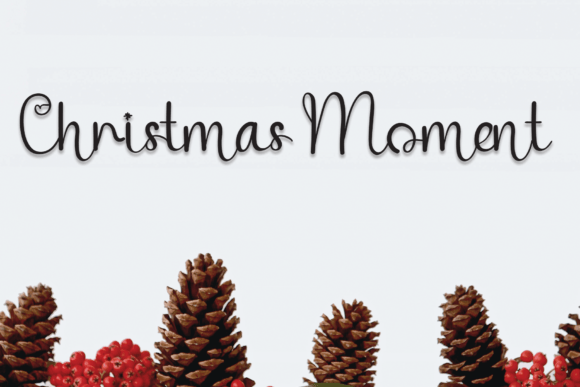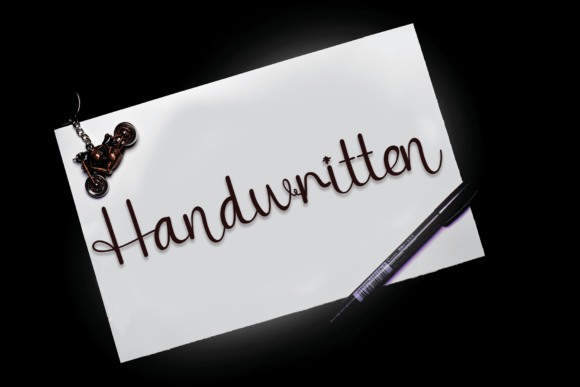
Basketball Font
The Basketball Font Download is a fun and friendly handwritten typeface created to bring energy and creativity to your designs. With its smooth curves and approachable handwritten flow, this font works beautifully across personal and professional projects. Whether you are designing invitations, posters, or digital layouts, Basketball adds warmth and playful charm.
A Handwritten Script with Playful Energy
The Basketball script font blends casual handwritten lines with modern rhythm. As a result, it feels approachable, versatile, and dynamic. Furthermore, it adapts seamlessly to stationery and branding projects, which makes it a flexible choice for designers.
Handwritten fonts always make stationery more personal. The Basketball Font is ideal for wedding invitations, thank you notes, birthday cards, and seasonal greetings. Because of its friendly handwritten strokes, every card feels heartfelt and polished. In addition, it ensures that your messages create lasting memories.
Branding and Logo Design with Basketball Font
Typography shapes how people see a brand. The Basketball handwritten font is excellent for boutique logos, product packaging, and promotional content. Its fun and approachable handwritten design allows businesses to appear professional yet creative. Therefore, it is especially effective for lifestyle, crafts, and creative industries.
Posters, Titles, and Editorial Displays
The Basketball Font Download also performs well in posters, magazines, banners, and book covers. It maintains clarity in every size while adding handwritten charm. Consequently, it is a dependable option for designers looking for creativity and readability in equal measure.
In today’s digital-first world, fonts must be flexible and eye-catching. The Basketball typeface integrates smoothly into Instagram graphics, Pinterest pins, YouTube thumbnails, and blogs. Because of its lively handwritten feel, it makes digital content look modern and fun.
Why Designers Choose Basketball Typeface
Designers appreciate fonts that balance personality with usability. The Basketball handwritten script keeps its playful character while remaining clear and legible. This balance makes it reliable for professionals and hobbyists alike. Moreover, its timeless handwritten style ensures it stays relevant for future creative projects.
Add Playful Charm to Your Projects Today
If you want a handwritten script that feels fun, friendly, and versatile, the Basketball Font Download is the perfect choice. From invitations and cards to posters, branding, and social media, it enriches every project with handwritten beauty. Finally, download Basketball today and let your work shine with charm and creativity.